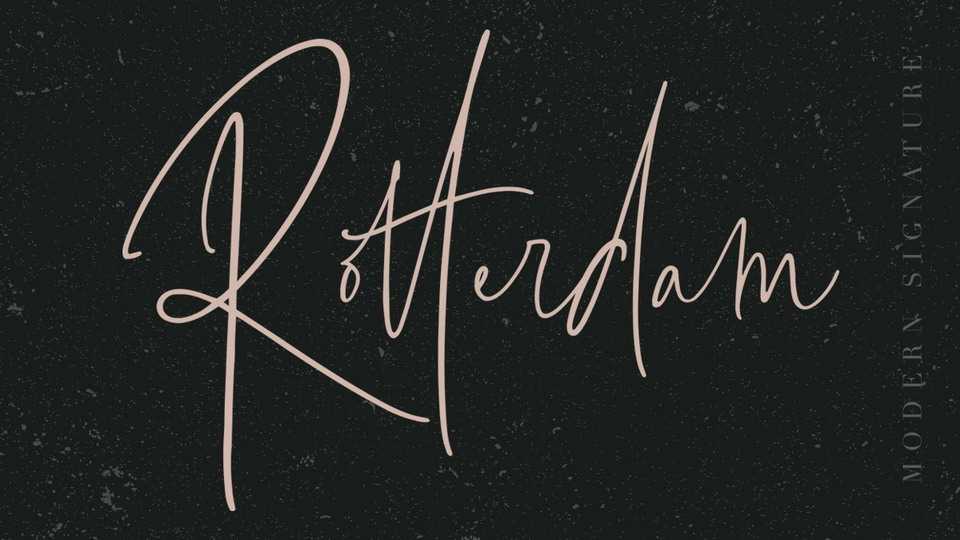
Download Rotterdam font, a signature style script that combines stylish letter shapes with contemporary twist. It’s perfect for all luxury projects, such as elegant logos, printed quotes, lovely wedding invitation cards, social media headers, product packaging and a lot more!